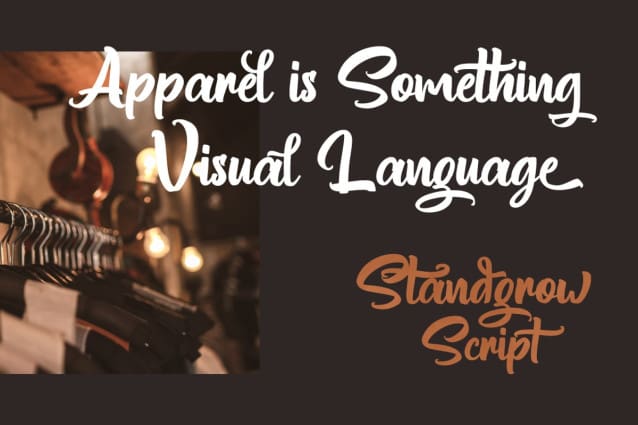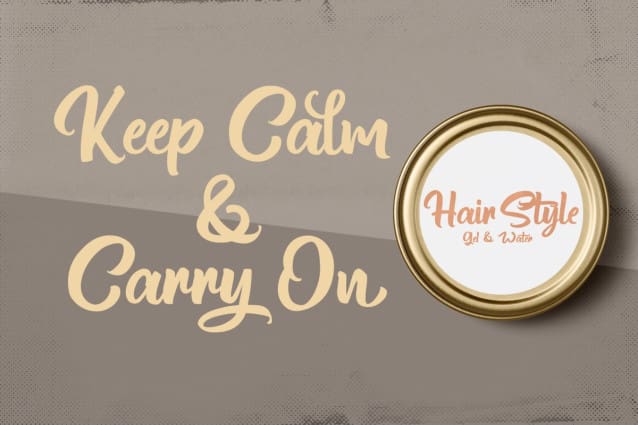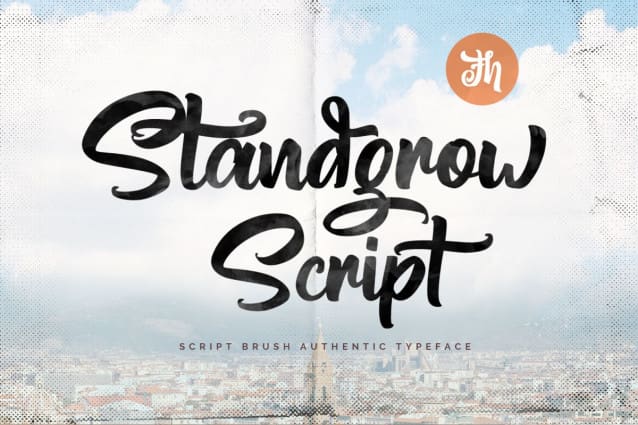
Standgrow Script Font
Standgrow Script Font is script font with authentic clean brush style, with opentype feature include of the font. Suitable for design, element design, wedding, event, t-shirt, logo, badges, sticker, and awesome work, etc…